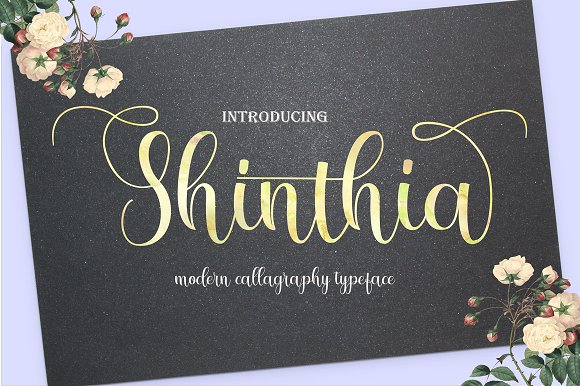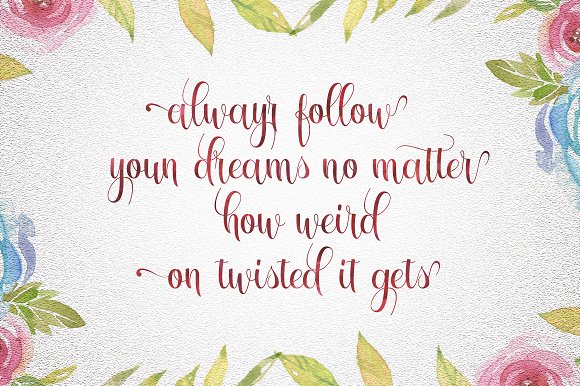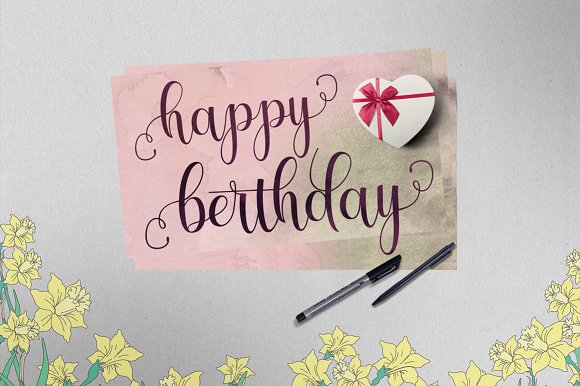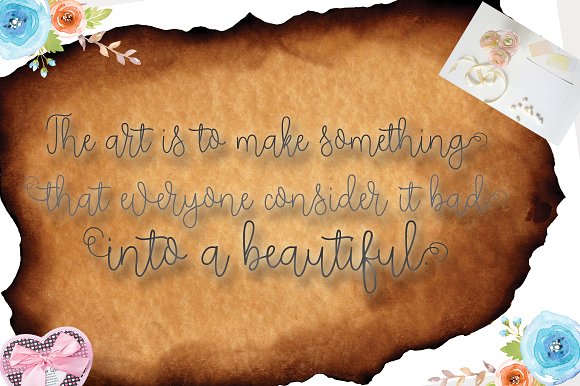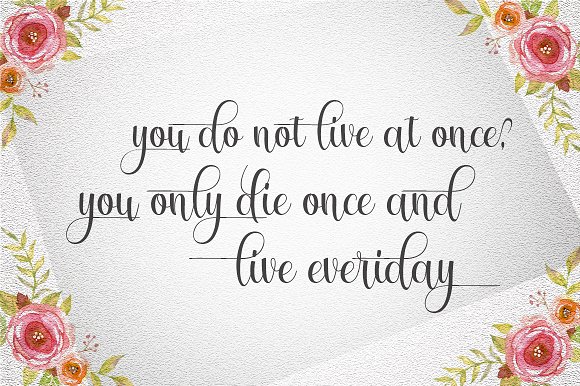
Shinthia Font Duo
Introducing!!
Shinthia FontDuo is the font style handmade dancing and then live trace to have unique forms of calligraphy, the writing style is very natural.